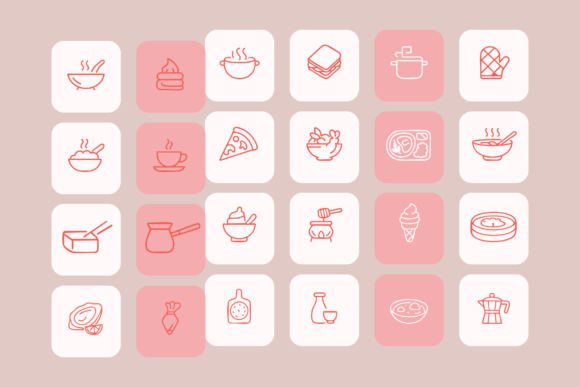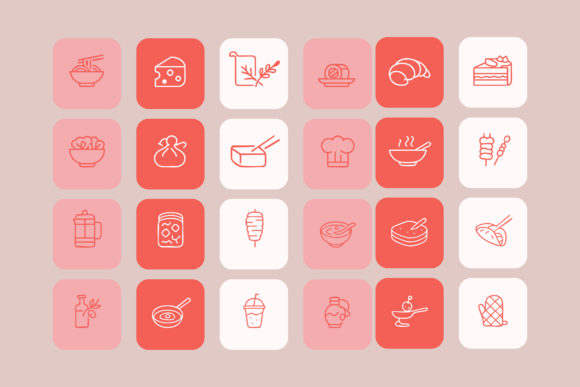
Introduction to Foodiesnacksdoodle Font
The delightful 48 Foodie Snacks Doodle Font is a charming, light-hearted dingbats selection showcasing hand-sketched culinary marvels from piping hot pizza to comforting ramen, invigorating coffee to decadent desserts, and even endearing utensils.
This line-art inspired font, with its neat and tidy design, allows effortless customization, making it a prime choice for café branding, menu designs, food packaging, adding flair to your cookbooks, fun planner stickers, chic t-shirt prints, and refreshing digital products Enjoy this celebration of gastronomy in font form.
Key Features of Foodiesnacksdoodle Font
Why Choose Foodiesnacksdoodle Font?